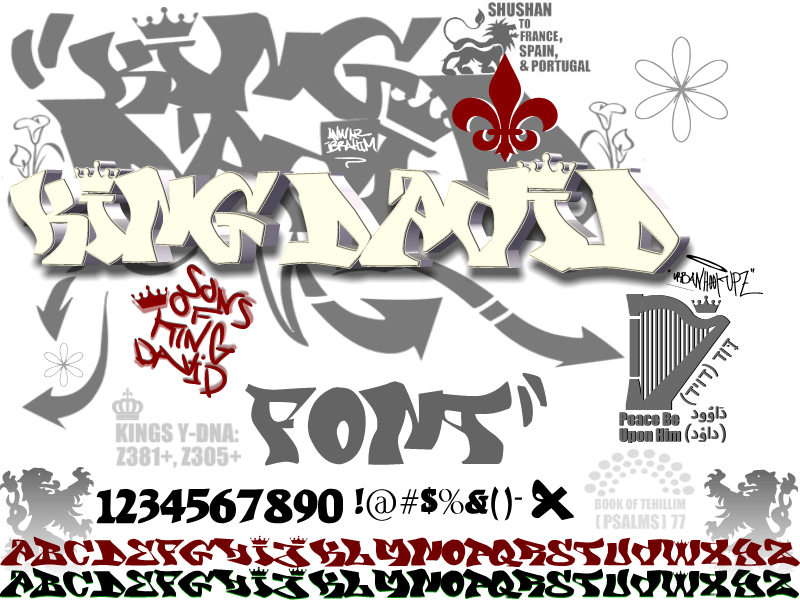
Font name: | King David |
Author: | Urban Hook-Upz |
Note by Urban Hook-Upz | |
King DAVID GRAFFITI FONT: A new and Fresh graffiti font in memory of the Great father of thousands. "ALL", True Blue Blood, Hebrew descendants. KING DAVID FONT by artist, Anwar Ibrahim. (Urban Hook-Upz) |